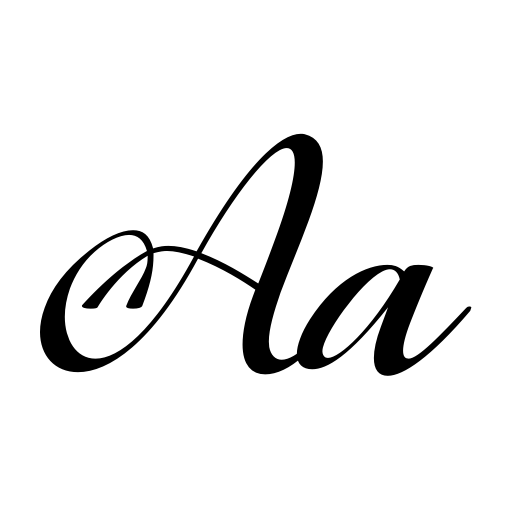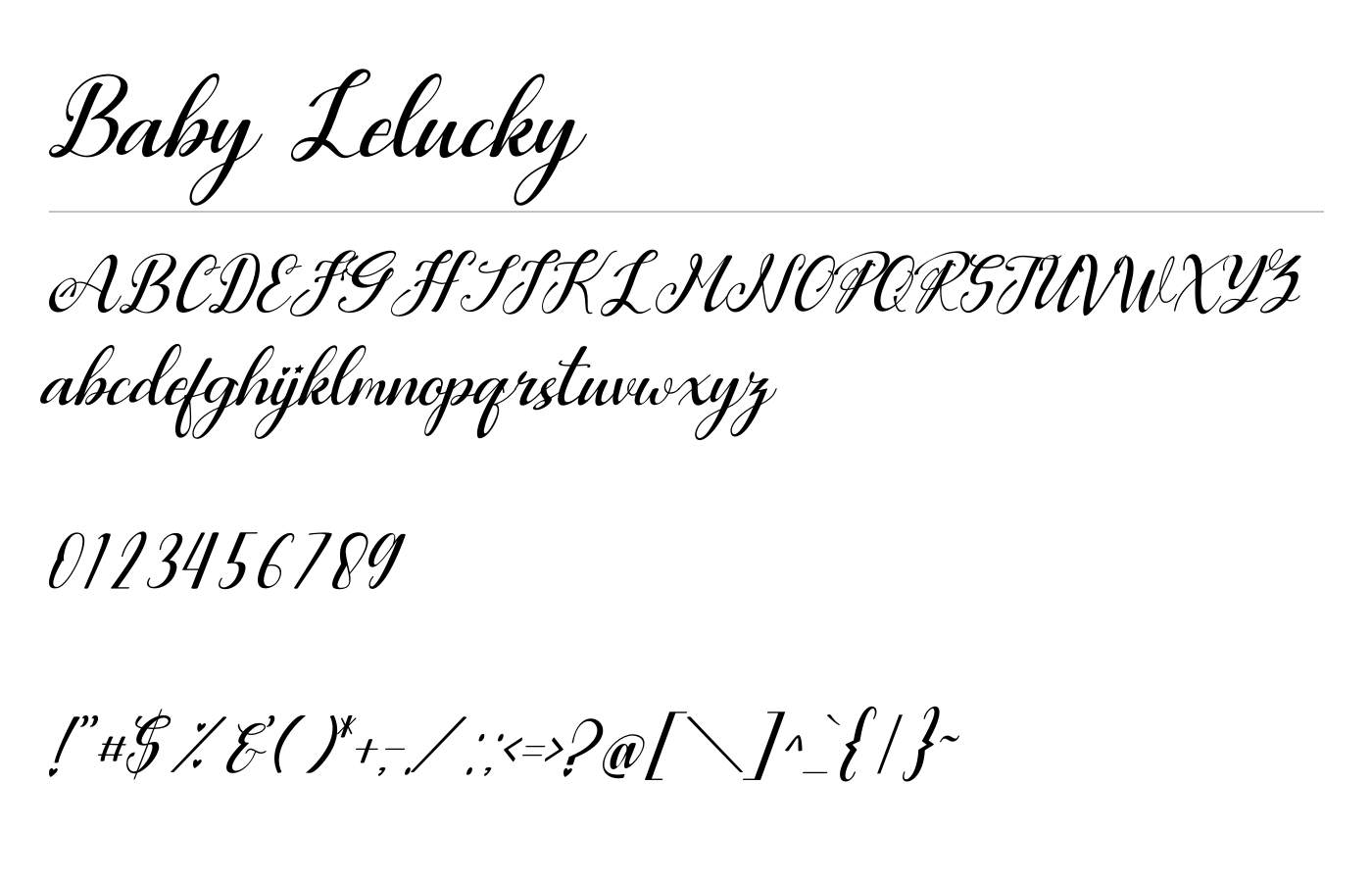
Baby Lelucky is an elegant script font with a flowing, calligraphic style that feels both sophisticated and graceful. Its slender strokes and smooth curves create a delicate yet confident look, making it ideal for luxury branding, invitations, and stylish headlines where a refined, classic touch is desired. This font works beautifully in designs that aim to convey charm and elegance with a modern flair.
Baby Lelucky Font
About Baby Lelucky Font
| Font family | Baby Lelucky Font |
| Designer | Arief Tri Sulistiyono |
| Trademark | Supersemar Letter |